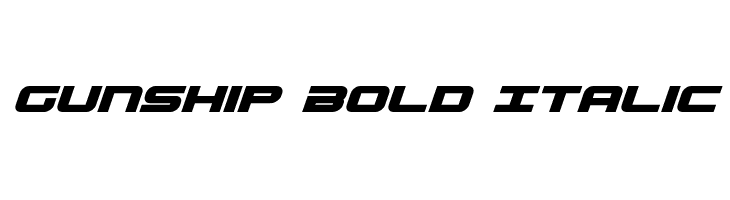
A bold, italicized font with a futuristic and dynamic design.
A bold, condensed, and italicized font with a futuristic and dynamic design.
A bold, expanded, and italic futuristic font with a dynamic and modern style.
A futuristic, gradient-lined font with a bold, geometric style.
A futuristic, italicized font with gradient stripes and dynamic movement.
A bold, futuristic font with a halftone effect and geometric design.
A bold, futuristic italic font with a halftone effect and dynamic style.
A bold, geometric outline font with a futuristic and industrial aesthetic.
A futuristic, italicized outline font with bold, geometric characters.
A bold, futuristic font with a semi-italic slant and angular design.